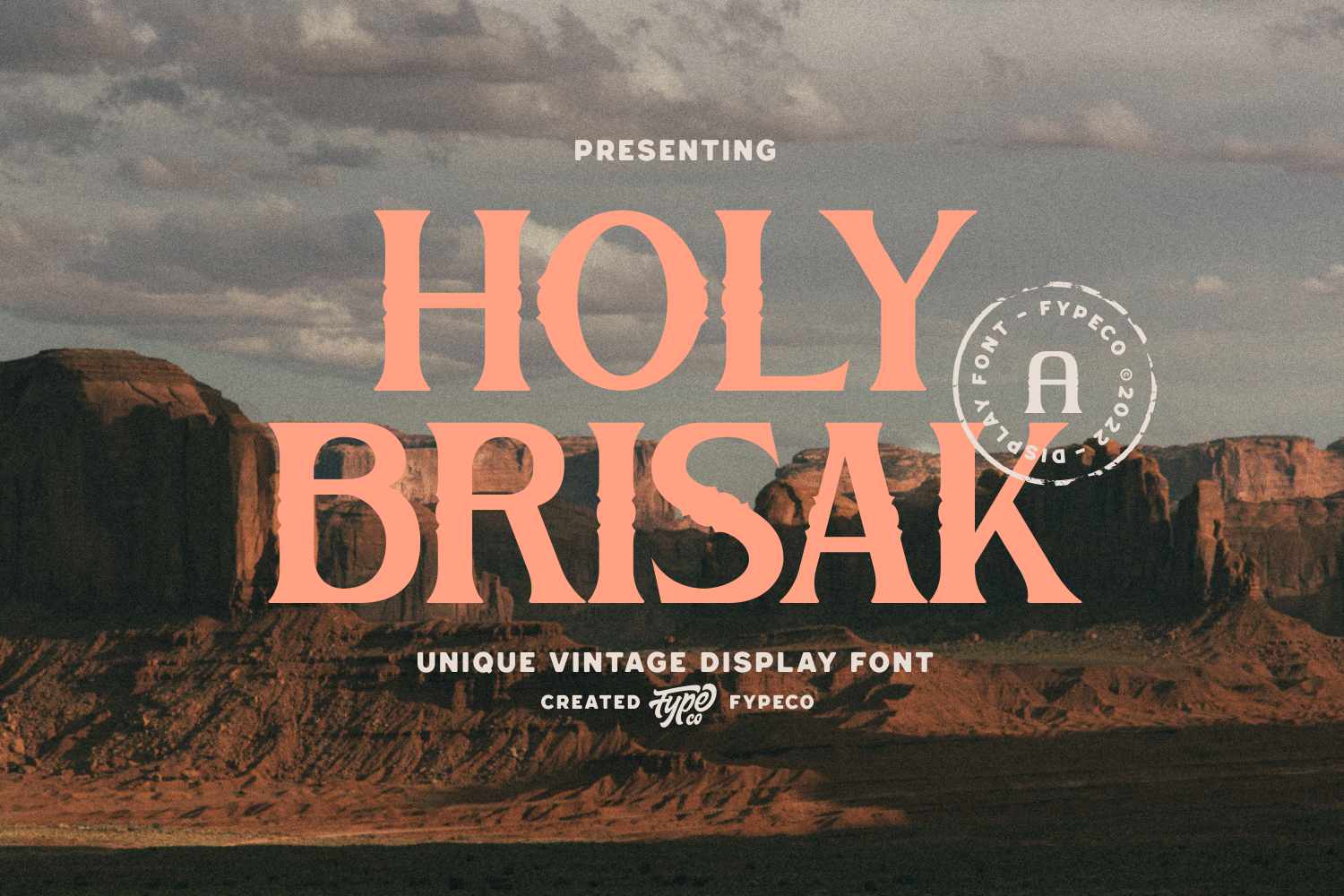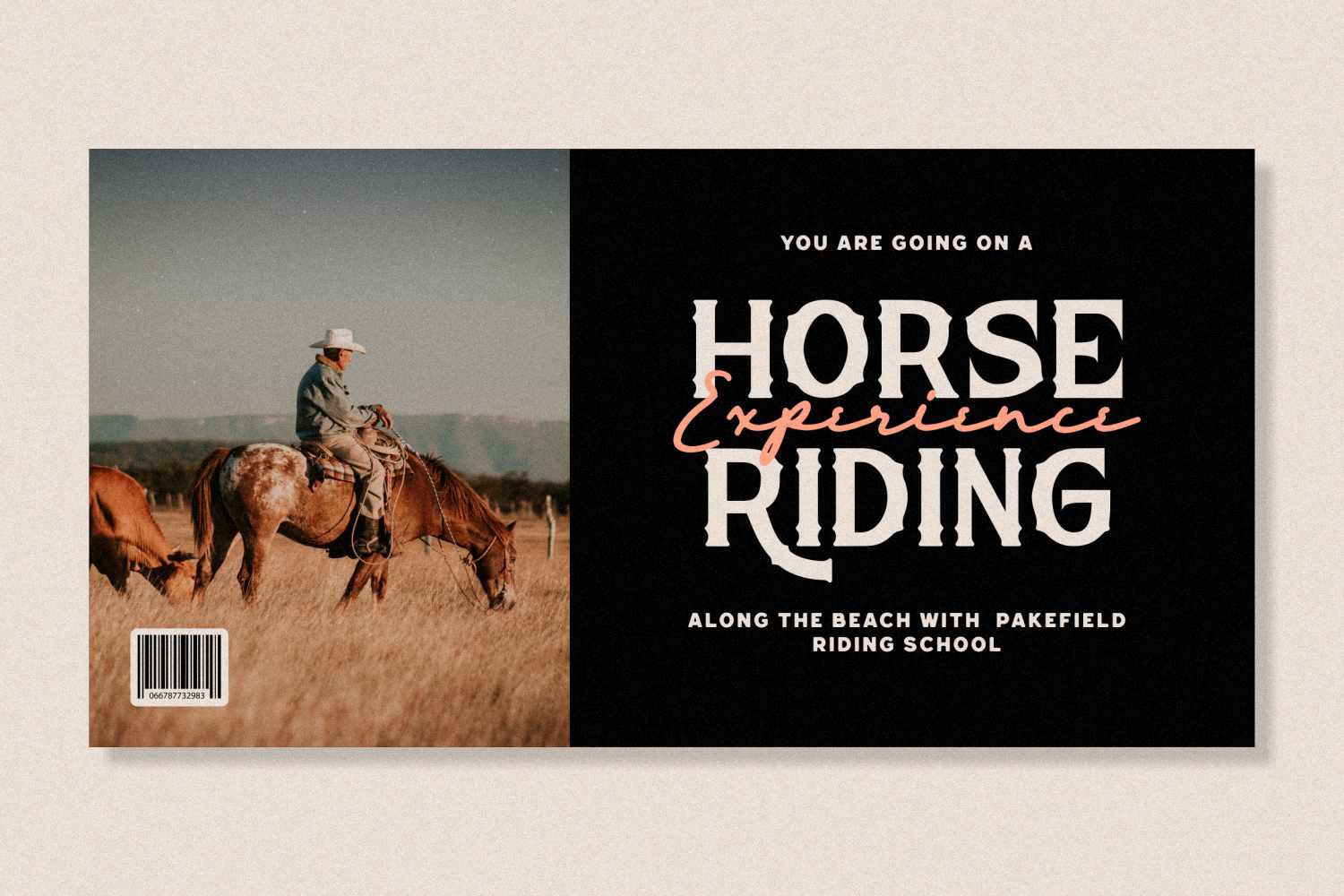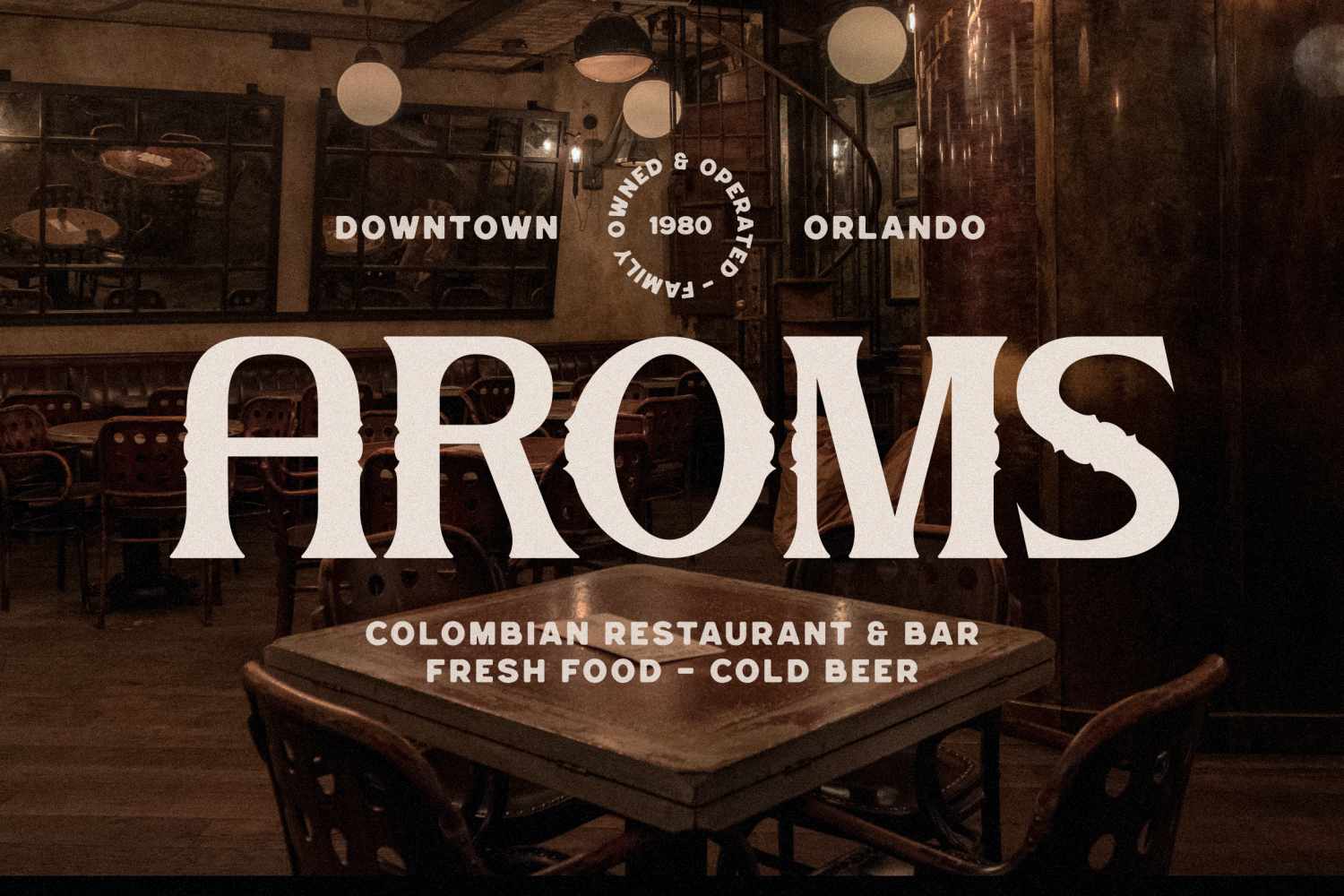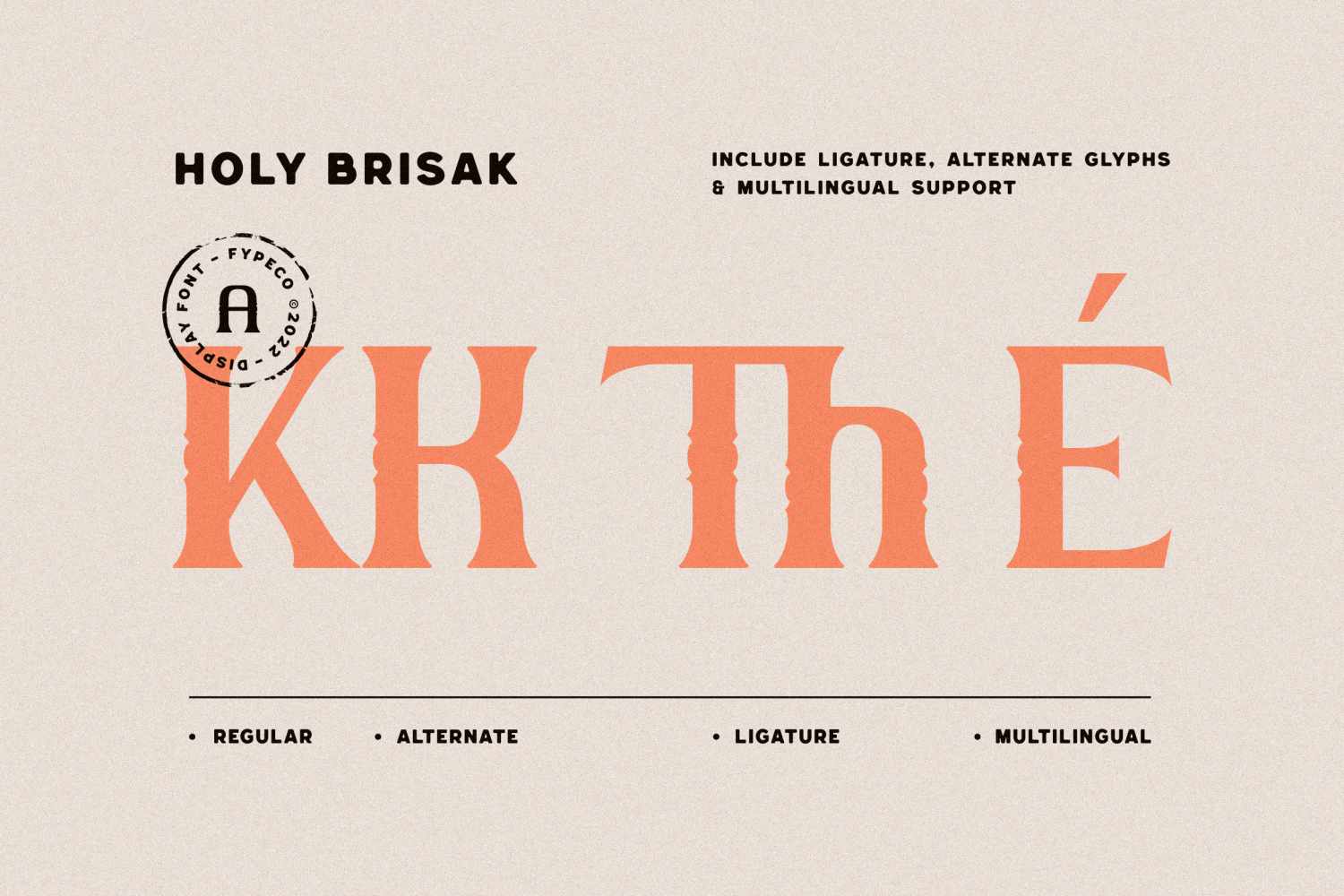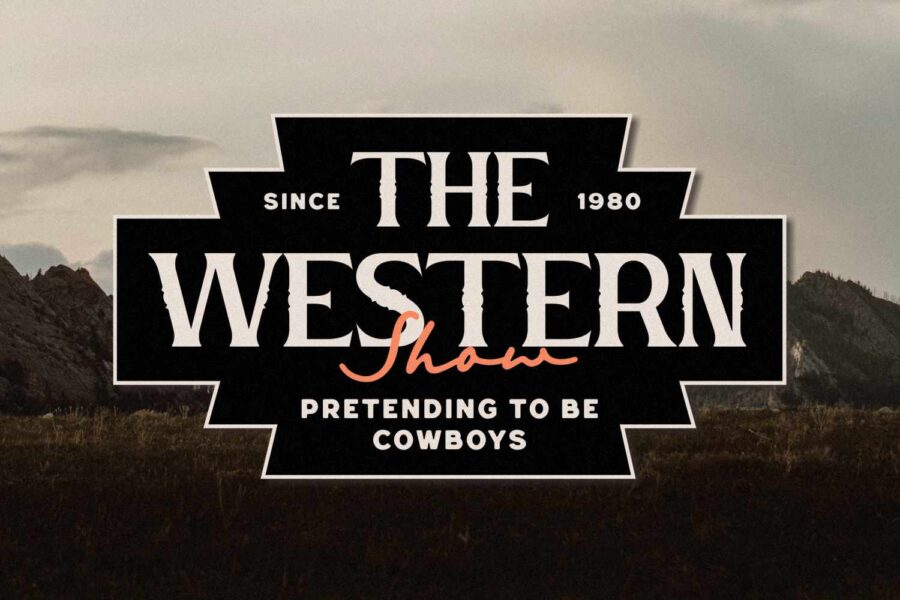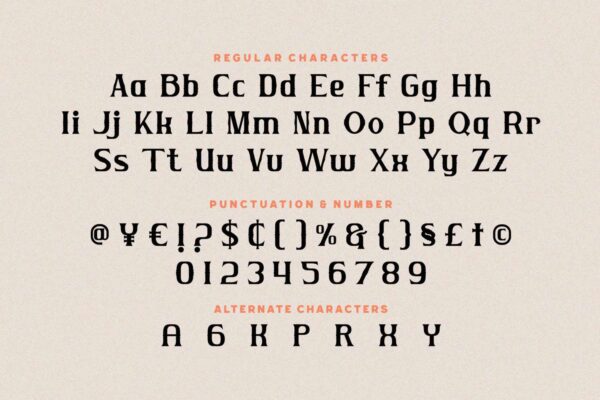
Holy Brisak
Holy Brisak is a unique vintage serif display font that captures the bold spirit of western aesthetics. With its sharp serifs and distinctive letterforms, this typeface brings a rugged yet elegant character that perfectly reflects the essence of retro cowboy design. Inspired by classic signage and old-style typography, it delivers a strong visual identity suitable for logos, posters, packaging, and branding that need a touch of authenticity and heritage charm.
Equipped with alternate characters, ligatures, and multilingual support, Holy Brisak offers flexibility for both modern and classic design projects. Whether you’re creating a restaurant logo, crafting vintage beer labels, designing western-themed posters, or developing apparel graphics, this font provides a timeless look with powerful presence. Its versatility ensures that every design stands out with confidence and a distinctive personality.